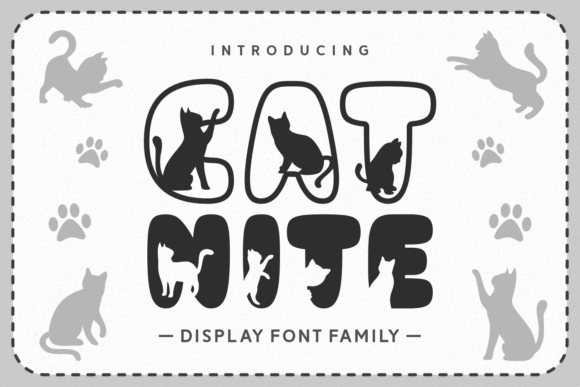
Introducing the Cat Nite Font, a decorative typeface that will instantly captivate your imagination! Created by the talented Dito from 7NTypes, this font is not your ordinary collection of letterforms. It is an enchanting and whimsical creation inspired by our feline friends, designed to bring a touch of charm and character to any project.
With its curvy and stylized letterforms, the Cat Nite Font is the perfect choice for those looking to add a playful and delightful touch to their designs. Whether you are creating children's books, pet-related projects, or any creative endeavor that needs a dose of delightful meow-factor, this font will surely make your work stand out.
Imagine the joy and excitement it will bring to young readers as they dive into a world of imagination, with the Cat Nite Font leading the way. Every page will come alive with its unique and captivating style, making reading an unforgettable experience for children of all ages.
Not only does the Cat Nite Font have a charming appeal, but it is also highly versatile. Its eye-catching design ensures that your message will be noticed and remembered. Whether you are designing logos, posters, or social media graphics, this font will effortlessly elevate your creations and make them truly remarkable.
But don't just take our word for it. Experience the magic of the Cat Nite Font for yourself. Let your creativity run wild and watch as it transforms your projects into works of art that evoke emotions and leave a lasting impression.
Don't settle for ordinary when you can have extraordinary. Step into a world where imagination knows no bounds with the Cat Nite Font. Download it now and unlock a world of endless possibilities. Your designs will never be the same again.
Get ready to embark on a whimsical journey, where every stroke of the pen or click of the mouse brings you closer to creating something truly remarkable. The Cat Nite Font awaits you, ready to add a touch of delightful meow-factor to your designs.